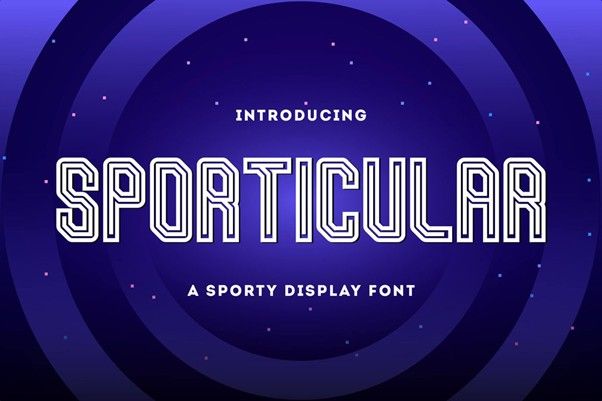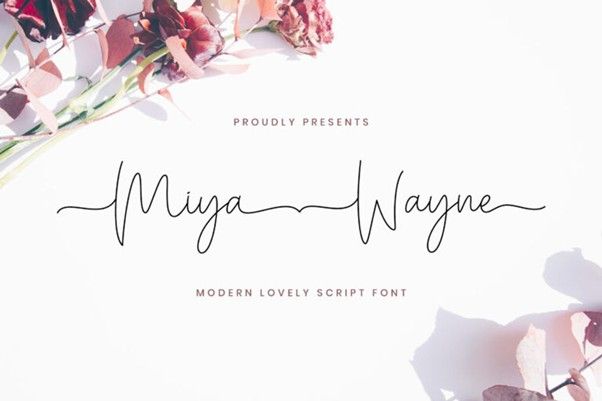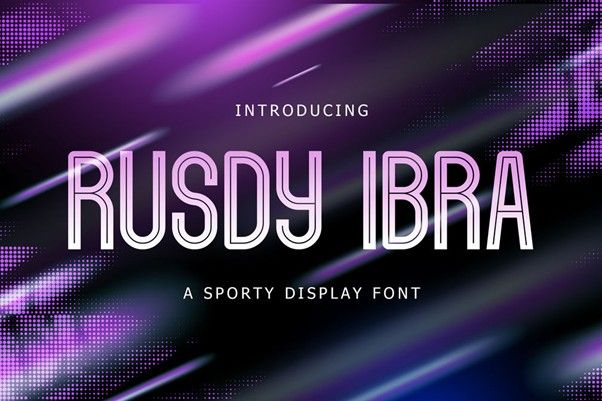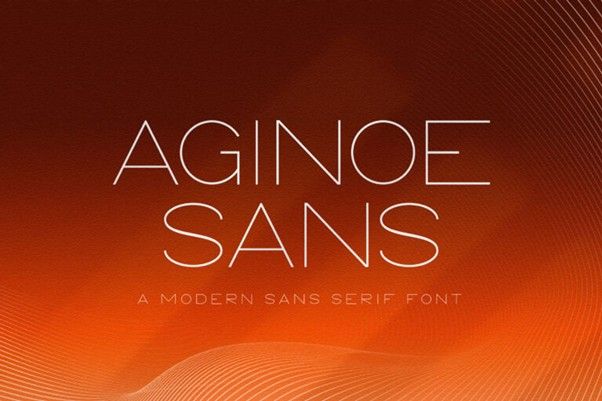
Eco Font: Meaning, Why It Matters, and Examples
The use of eco font has become a simple yet effective way to support more sustainable design practices. In printing and digital design, fonts do more than shape visual appearance. They also affect how much ink and paper are used during the printing process.
Some typefaces have thicker strokes and wider letterforms, which can increase ink consumption. That’s why businesses and designers should consider using eco-friendly fonts to help reduce resource usage and create a slightly more positive environmental impact.
Key takeaways:
• Eco fonts help businesses reduce ink and paper waste through specially designed features such as thinner strokes, hollow characters, and efficient spacing.
• In addition to supporting more environmentally friendly practices, fonts can also help companies lower operational costs, especially for businesses that frequently produce printed materials.
• Examples such as Mediqa, Sporticular, and Aginoe Sans show that minimalist fonts can remain visually appealing without sacrificing readability.
What Is Eco Font?
An eco font is a typeface category designed to minimize the use of ink, toner, and paper without sacrificing readability. These fonts typically feature specific characteristics such as thinner letter strokes, streamlined designs, tighter spacing, and hollow characters.
By switching to this type of font, ink consumption can be significantly reduced thanks to its more minimal letterform design. Furthermore, more text can fit onto a single page, helping reduce paper usage.
The impact of using eco fonts becomes even more noticeable in large-scale printing projects such as books, promotional brochures, and office documents.
Why Should You Use Eco-Friendly Fonts?
If you care about environmental issues, it’s worth noting that printed materials remain widely used despite the digital era. Choosing eco-friendly fonts is a simple yet impactful step toward more sustainable printing. These fonts are specifically designed to use less ink and, in some cases, reduce the amount of paper needed, which directly lowers your environmental footprint.
1. Reduce Material Waste
Font selection plays an important role in determining how much ink is used and how long a document is. For example, a study cited by DTF Print found that switching from Arial to Century Gothic can cut ink consumption by nearly 30%.
When eco-friendly fonts are used in high-volume printing projects, businesses can significantly reduce ink and paper waste. This small adjustment shows that companies can operate efficiently while still being environmentally responsible.
2. Save Printing Cost
Another reason businesses should use eco-friendly fonts is printing cost efficiency. Using less ink or toner helps reduce operational expenses, especially for companies with high printing demands.
Although the savings may seem small at first, they can become significant over time when applied consistently.
3. Build an Eco-Friendly Brand Image
Today, consumers are becoming increasingly aware of sustainability issues. As a result, using eco-friendly fonts can become part of a brand’s environmentally conscious image. This approach effectively demonstrates how a company takes responsibility for its resource usage while reinforcing a more sustainable brand identity.
5 Examples of Eco Font Style
For those of you looking for fonts that prioritize efficiency and sustainability in their design, check out the following examples.
1. Mediqa
Mediqa classic serif font
Mediqa features lowercase letters with a height that is relatively close to its uppercase characters, allowing more text to fit on a single page while maintaining readability. This helps reduce the number of printed pages and makes paper usage more efficient.
2. Sporticular
Sporticular display font
Sporticular uses an inline style that highlights the outer strokes while leaving hollow spaces inside each letter, helping minimize the amount of ink needed for printing. This type of design works well for posters, headlines, or sports merchandise that aims to look visually striking without excessive ink usage.
3. Miya Wayne
3 Miya Wayne
Miya Wayne script font
Miya Wayne is considered an eco font because of its very thin strokes, which reduce the amount of ink covering the page surface. In addition, its minimalist design creates an elegant visual appearance without relying on excessive graphic elements. This makes it suitable for invitations or cards that are both aesthetic and environmentally friendly.
4. Rusdy Ibra
Rusdy Ibra display font